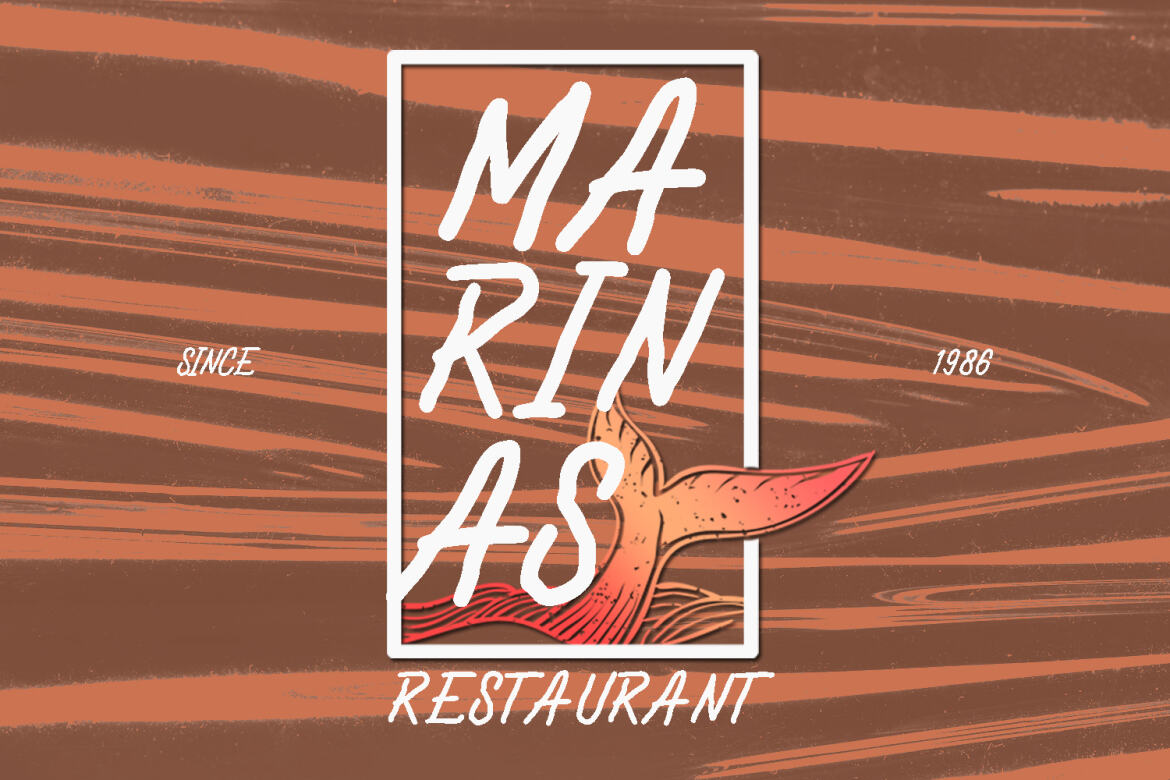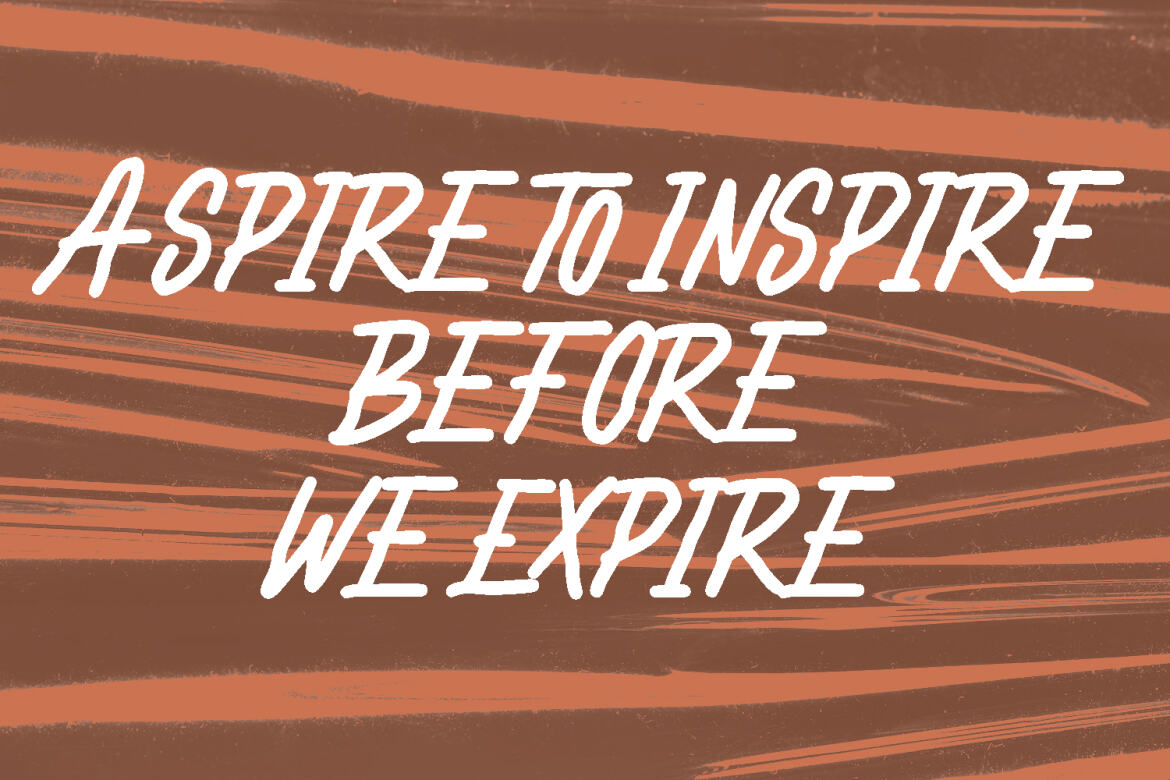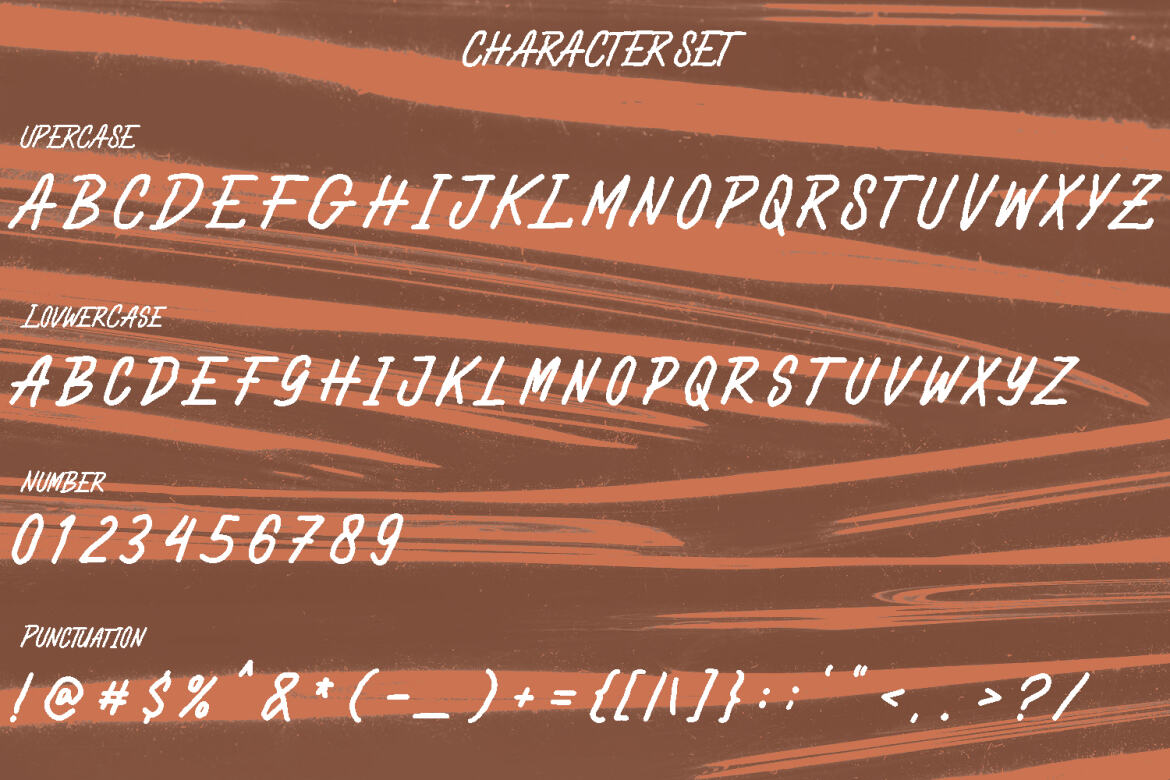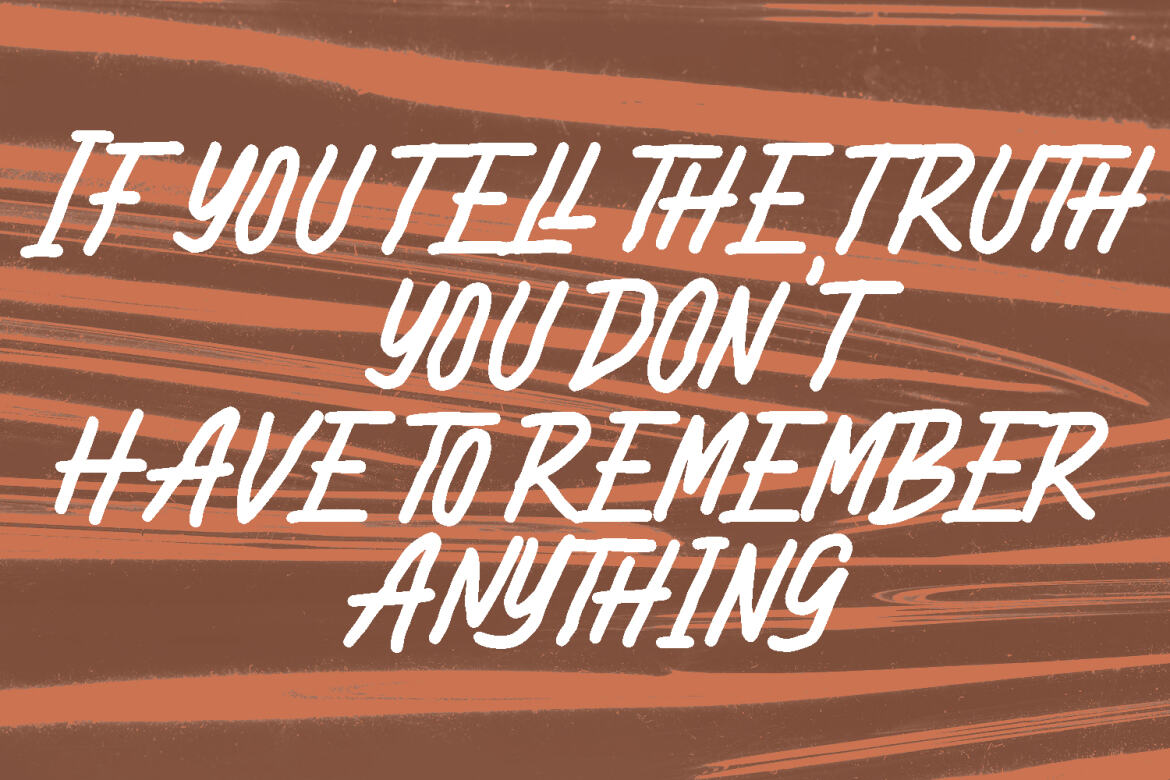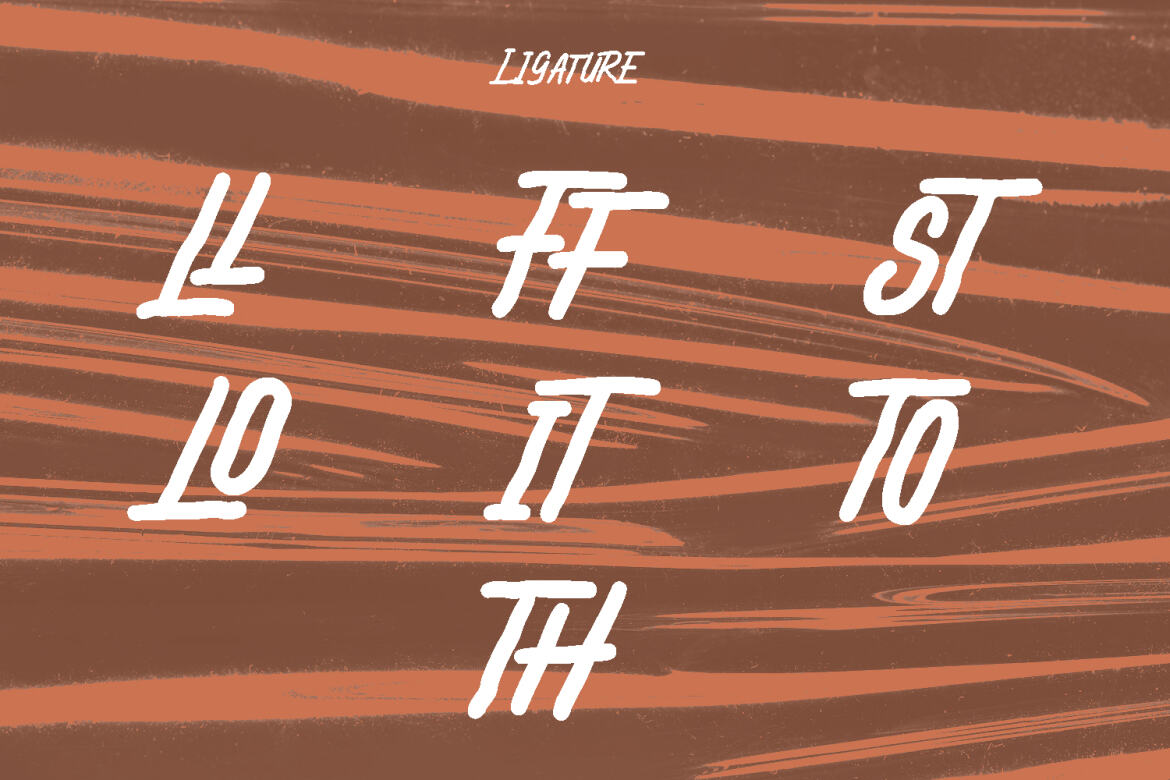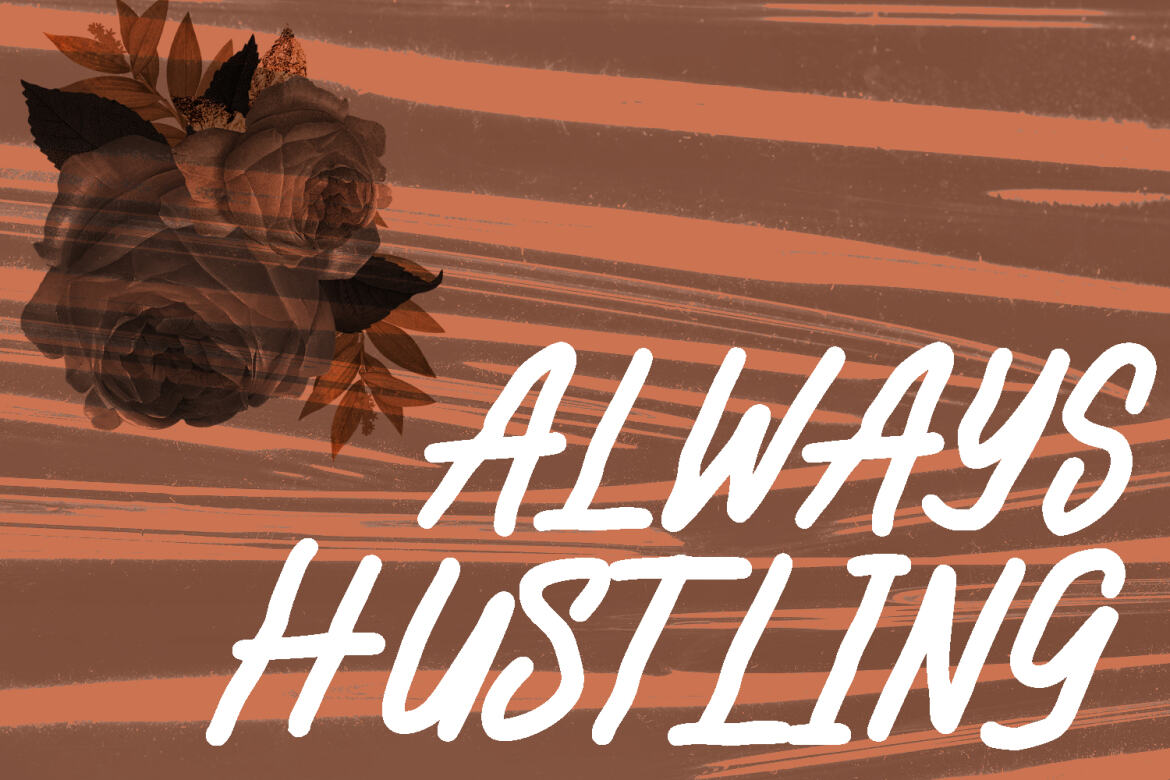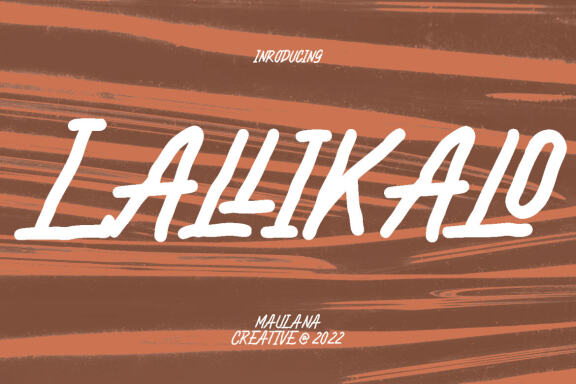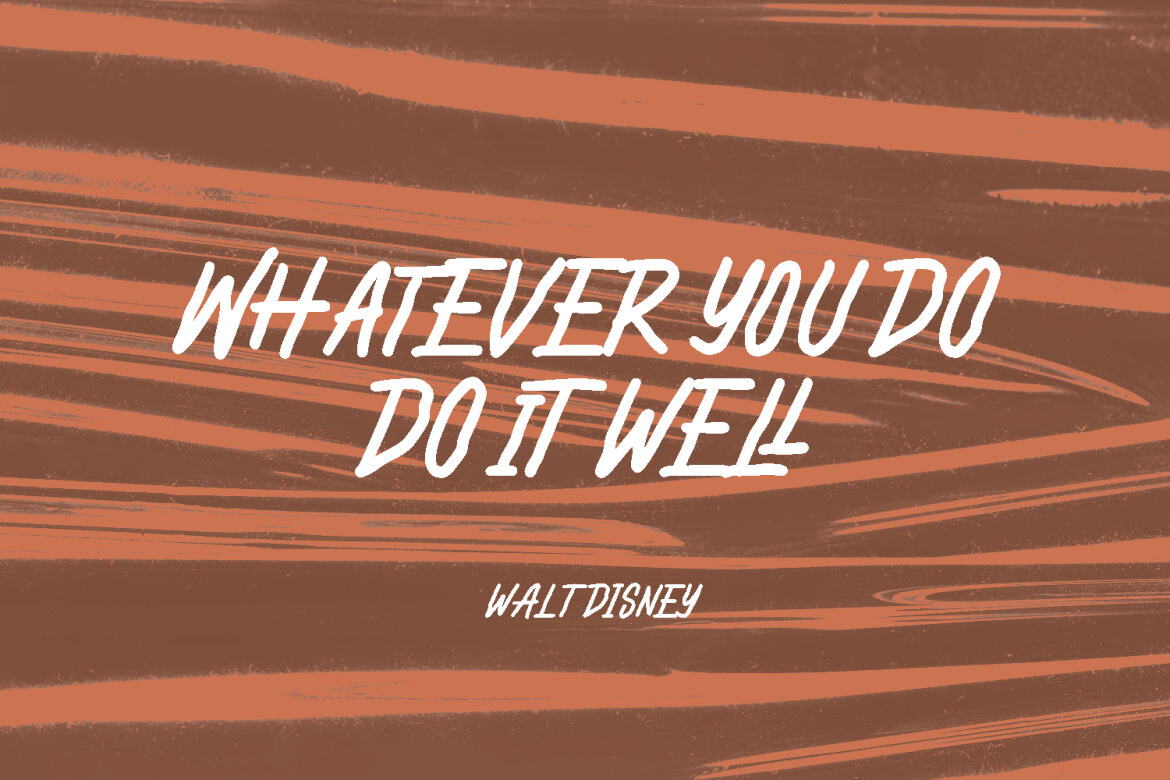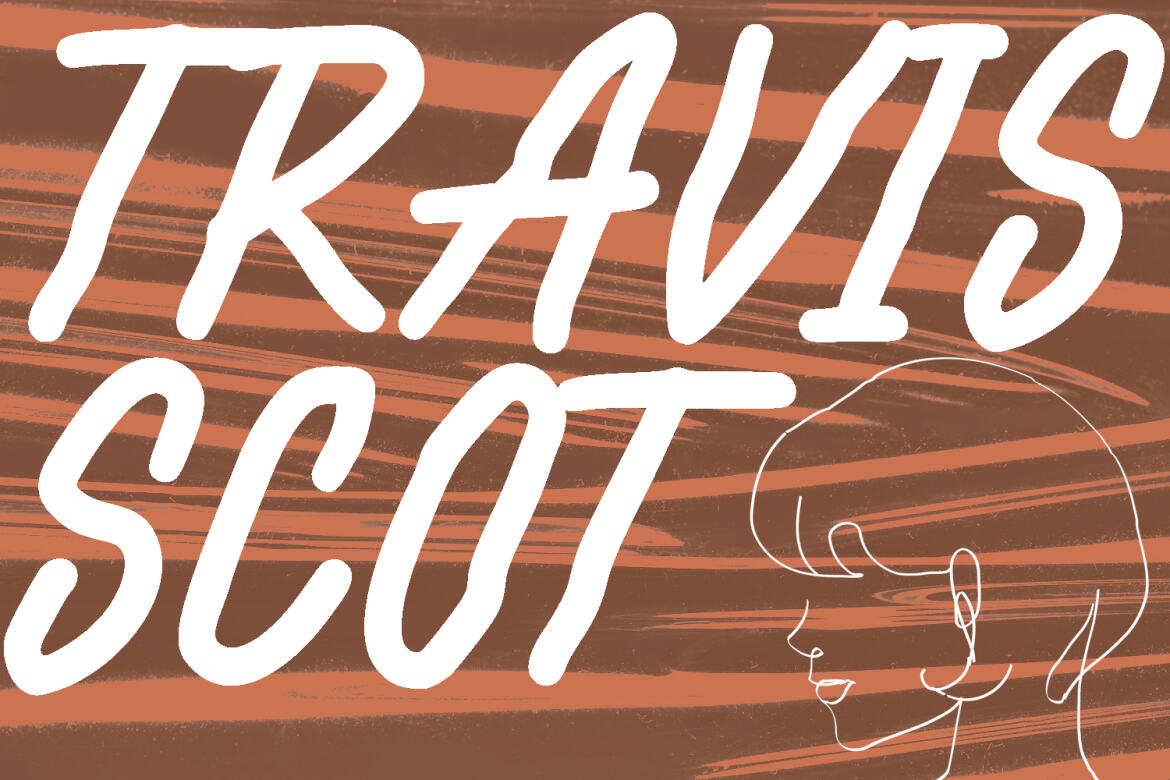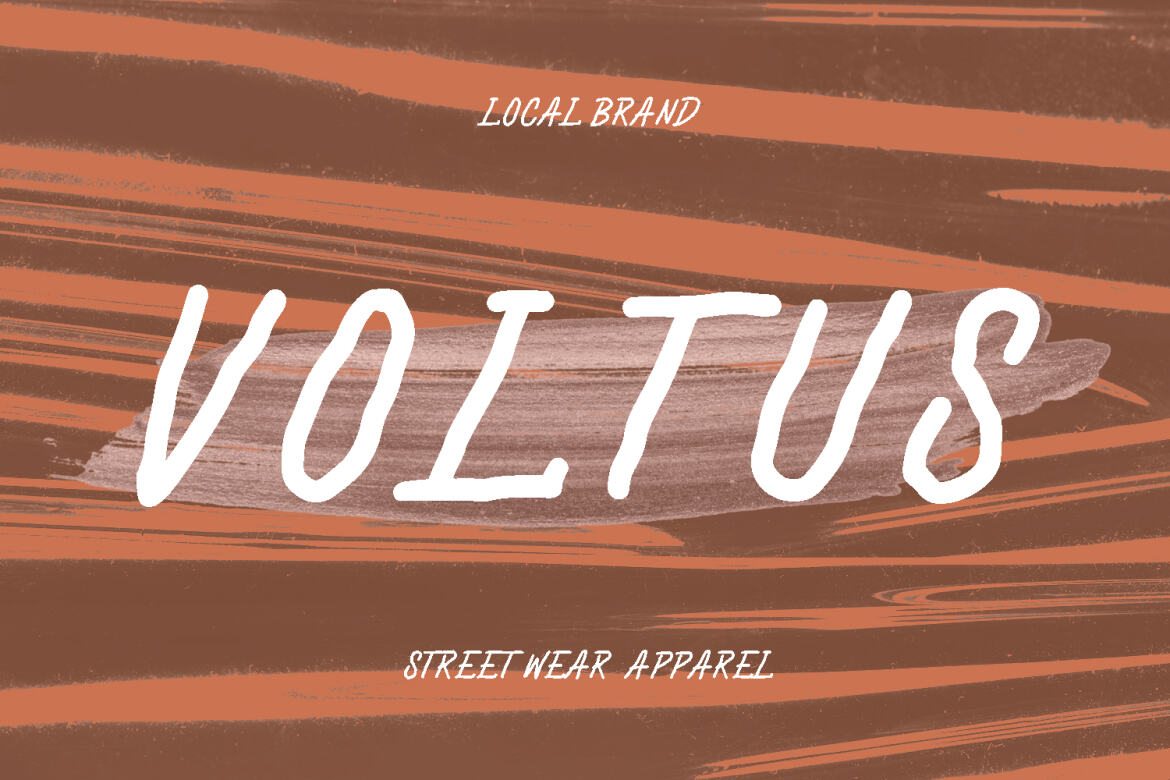
Lallikalo FREE Handwritten Font
Lallikalo
Lallikalo is casual handwritting font. With regular rough stroke, fun character with a bit of ligatures and alternates. To give you an extra creative work. Lallikalo font support multilingual more than 100+ language. This font is good for logo design, Social media, Movie Titles, Books Titles, a short text even a long text letter and good for your secondary text font with sans or serif. Make a stunning work with Lallikalo font.